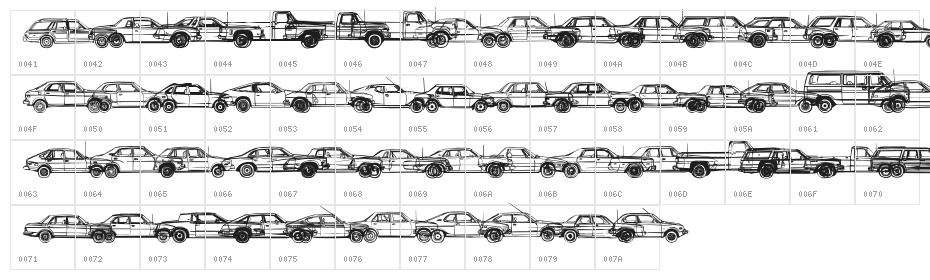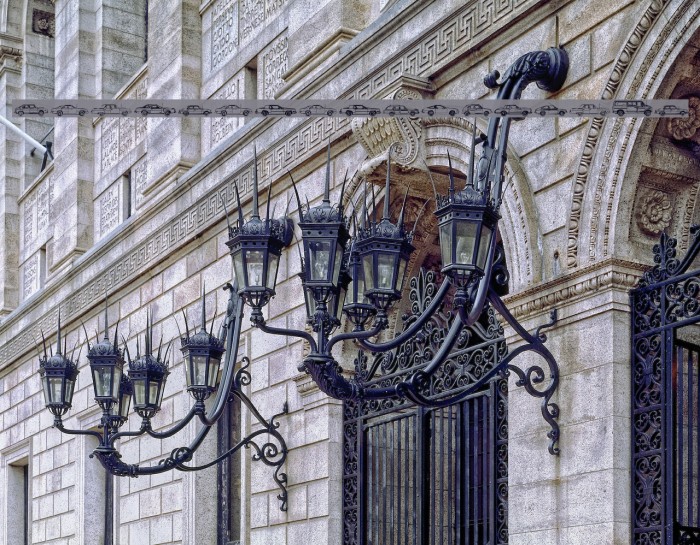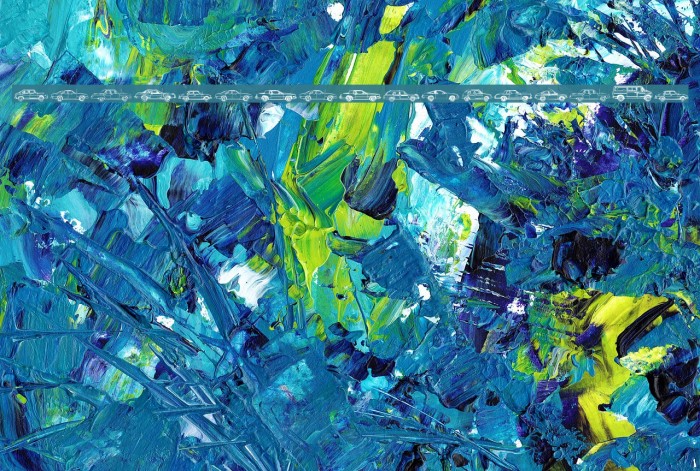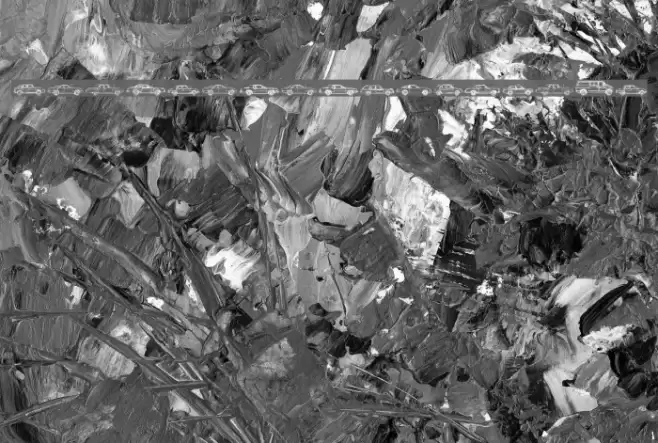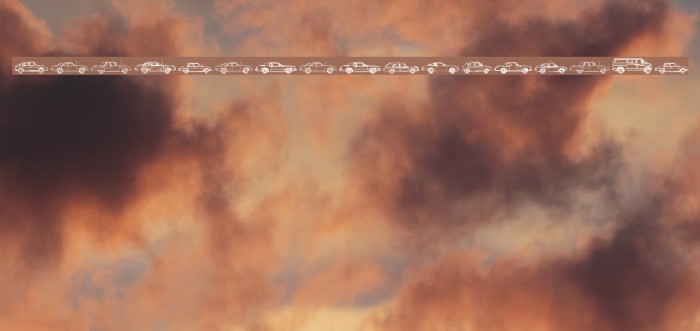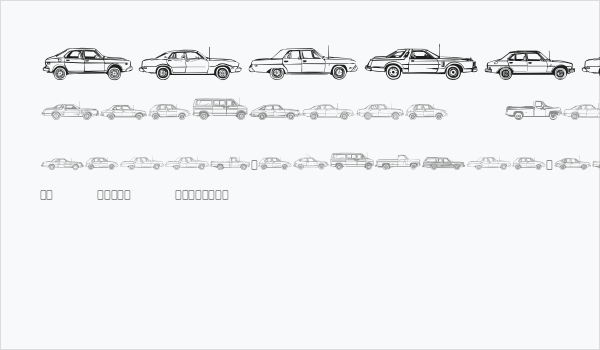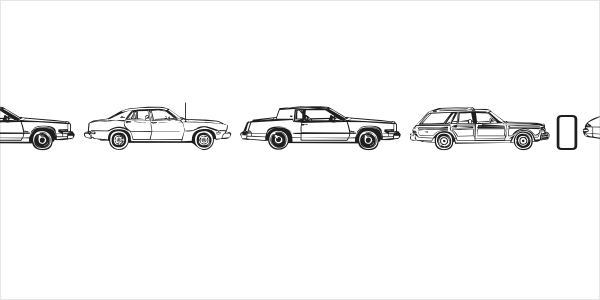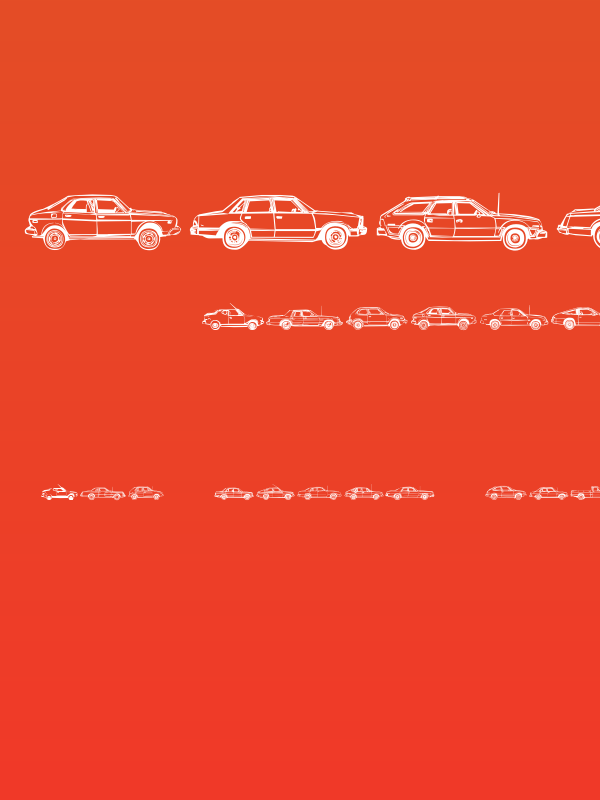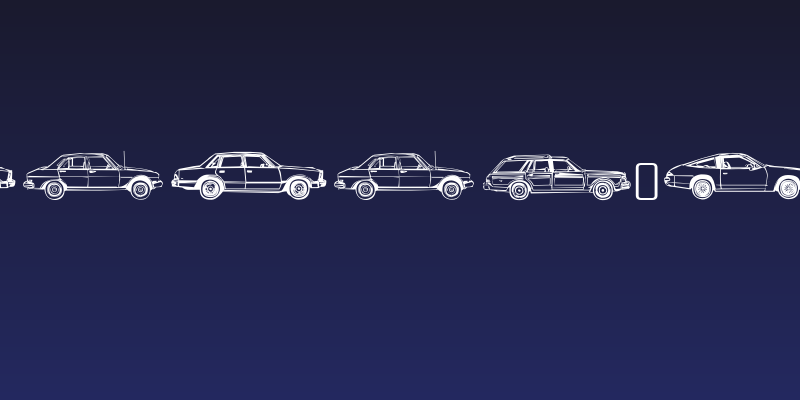
OilCrisisA-Regular Font
OilCrisisA-Regular Description
This font is a unique decorative typeface where each character is represented by a detailed illustration of a vintage car. The design captures the essence of classic automobiles, making it a playful and thematic choice for projects related to cars, nostalgia, or retro themes. Each letter and number is distinct, showcasing different car models, which adds a layer of visual interest and complexity. The font is not suitable for body text due to its intricate design but serves well in creative and thematic headings or logos.
| Proposed Projects | Ideal for automotive-themed posters, retro event invitations, or creative branding projects related to cars. |